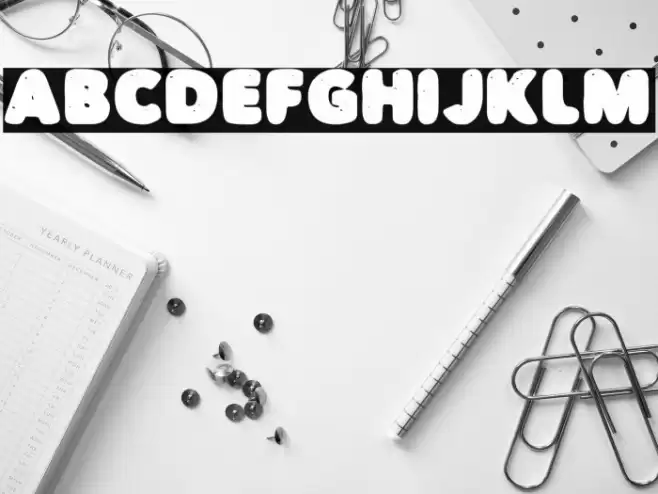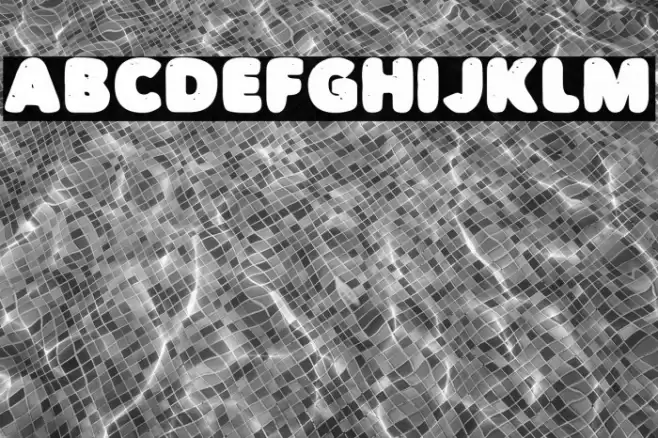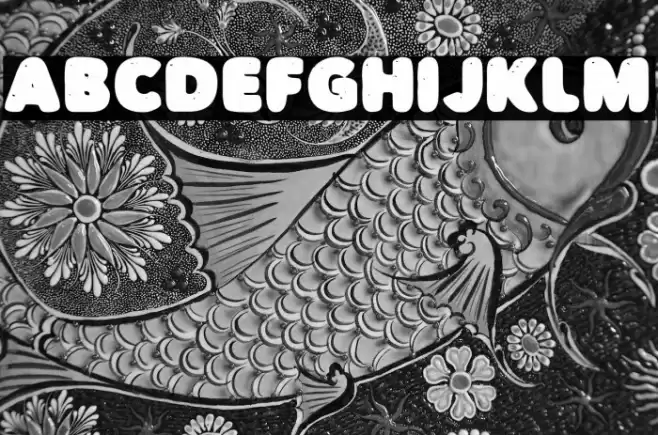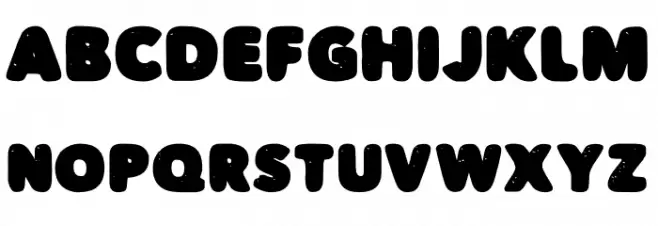
CACTUSPIZZAPERSONALUSE-Bold Font
CACTUSPIZZAPERSONALUSE-Bold Description
This font features bold, rounded characters with a playful and chunky appearance. The letters are uniformly thick, giving them a strong presence and making them highly legible. The style is reminiscent of retro or vintage designs, with a touch of whimsy due to the rounded edges and slightly irregular shapes. The font is designed to stand out, making it ideal for eye-catching displays. It lacks lowercase letters and special characters, focusing solely on uppercase letters, which enhances its bold and impactful look.
A bold, rounded, and playful font with a vintage feel from Uncategorized fonts.
- Font: CACTUSPIZZAPERSONALUSE-Bold
- Proposed Projects: Ideal for posters, logos, children's books, and playful branding projects.
- Overall Style: Vintage